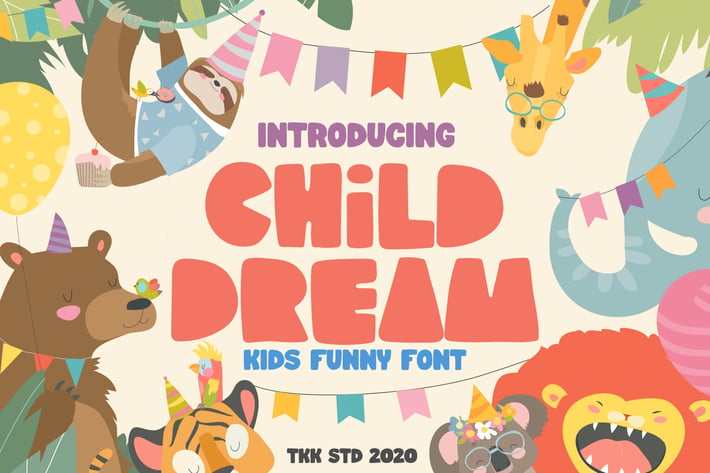
Child Dream - Kids Block Font
CHILD DREAM – A Fun & Imaginative Typeface for Kids’ Designs
Child Dream is a kid-friendly display typeface crafted with playful proportions, soft curves, and bright personality. Designed with a chunky block style and low contrast, its letterforms evoke innocence and fun—bringing joyful energy to every word. The rounded structure and quirky rhythm feel hand-built and animated, offering the perfect mix of legibility and expressiveness for young audiences. From storybooks to educational apps, this font brings a sense of discovery, delight, and design confidence.
Ideal for kids’ branding, early education materials, packaging, cartoons, and children’s product labels, Child Dream connects with audiences through warm, cheerful tones. Whether you're designing a playful app UI, a birthday party invitation, or a toy packaging concept, the font’s welcoming feel supports a visual language of imagination and growth. It helps brands and creators engage parents and children alike with typography that’s both functional and emotionally uplifting.
Key Features
Kid-Friendly & Attention-Grabbing:
- Whimsical and approachable shapes
- Rounded edges ensure softness and warmth
- Bold strokes for clear visibility across media
Perfect for Child-Centric Content:
- Ideal for educational materials, games, toys, and picture books
- Appeals visually to both kids and caregivers
- Easy to read at large or small sizes